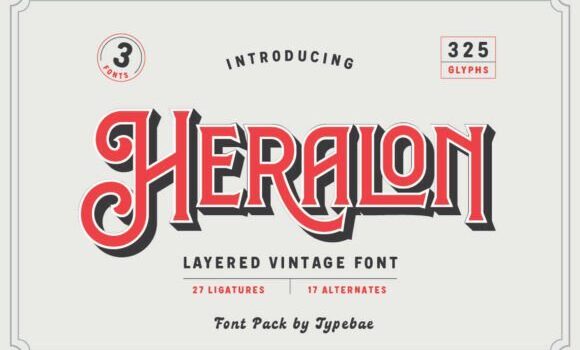
heralon
Heralon Font - Featured Image
Heralon Font – Free Download Introduction to Heralon Font Heralon is a layered vintage serif font designed to bring bold and stylish impact to your projects. 📸 Preview Gallery 6 images 📌 Product Name Heralon Font 👤 Author Typebae 📂